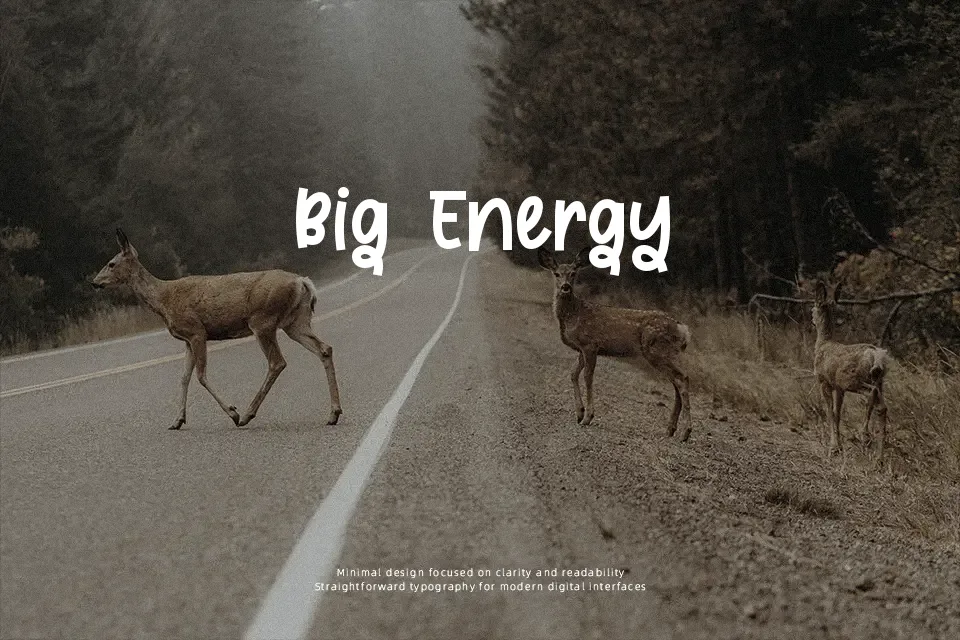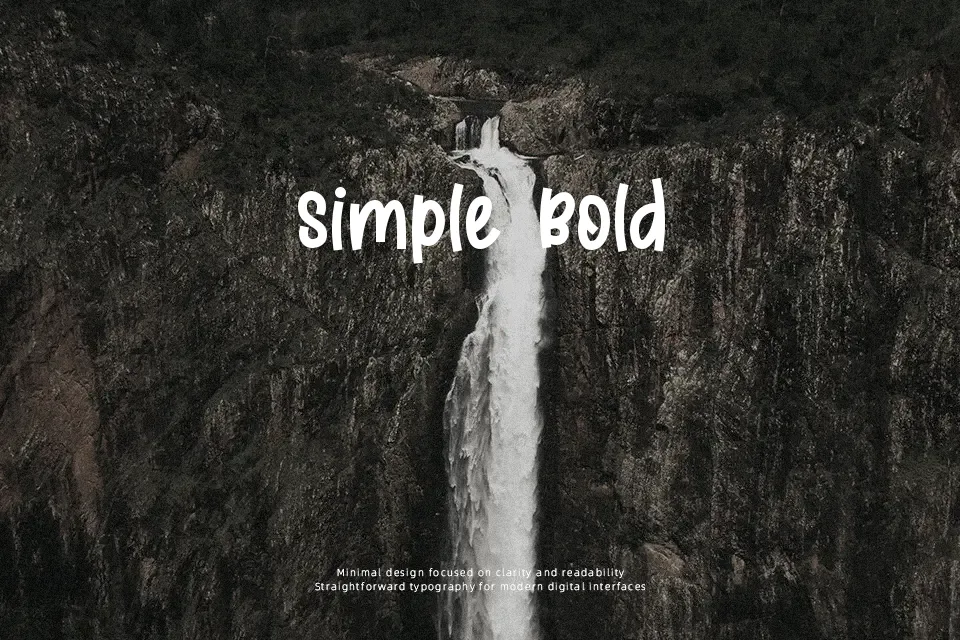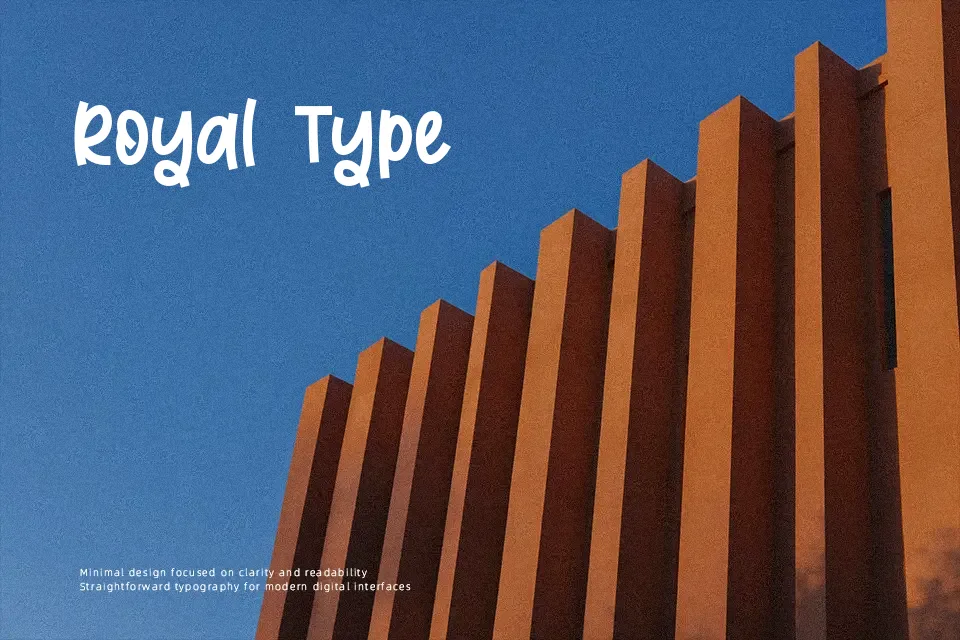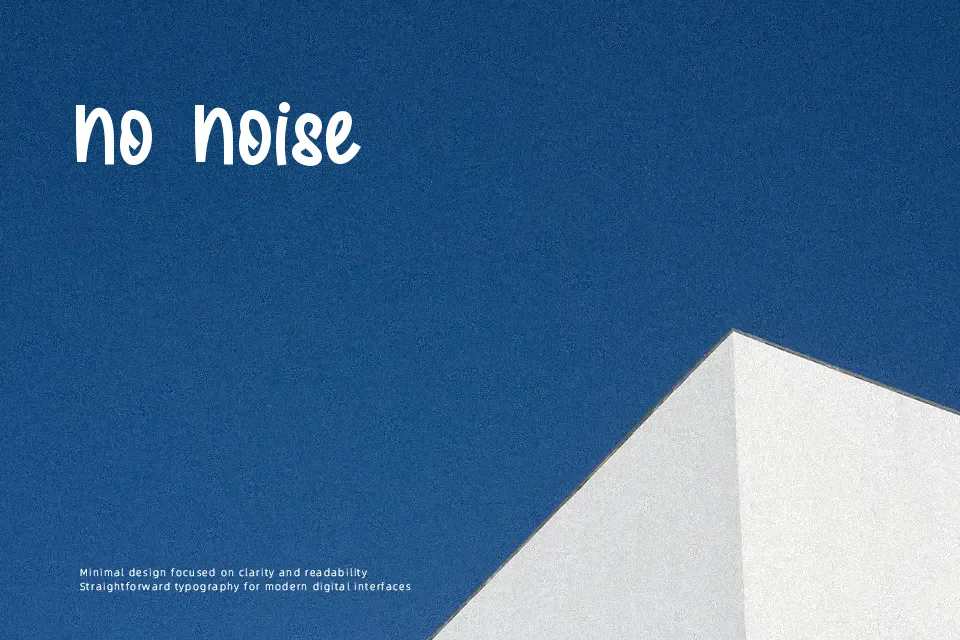
Sweet Toffee Font
Sweet Toffee Font uses broad, rounded letterforms with heavy, smooth strokes and a friendly cartoon-like rhythm. The characters appear generously proportioned, giving short words a soft, prominent presence in display settings. Its bold construction keeps headings easy to notice, while the rounded details make it more appropriate for playful layouts than formal communication. Spacing appears balanced enough for simple titles and labels at larger sizes. The typeface is most convincing in short phrases, where its expressive shapes can remain distinct; dense copy, small captions, and extended reading reduce the clarity of its decorative display character.
Best For: children’s party invitations,cartoon poster headlines,sweet product packaging,playful social media graphics
Not Ideal For: long paragraph text,small interface labels,corporate reports,technical manuals